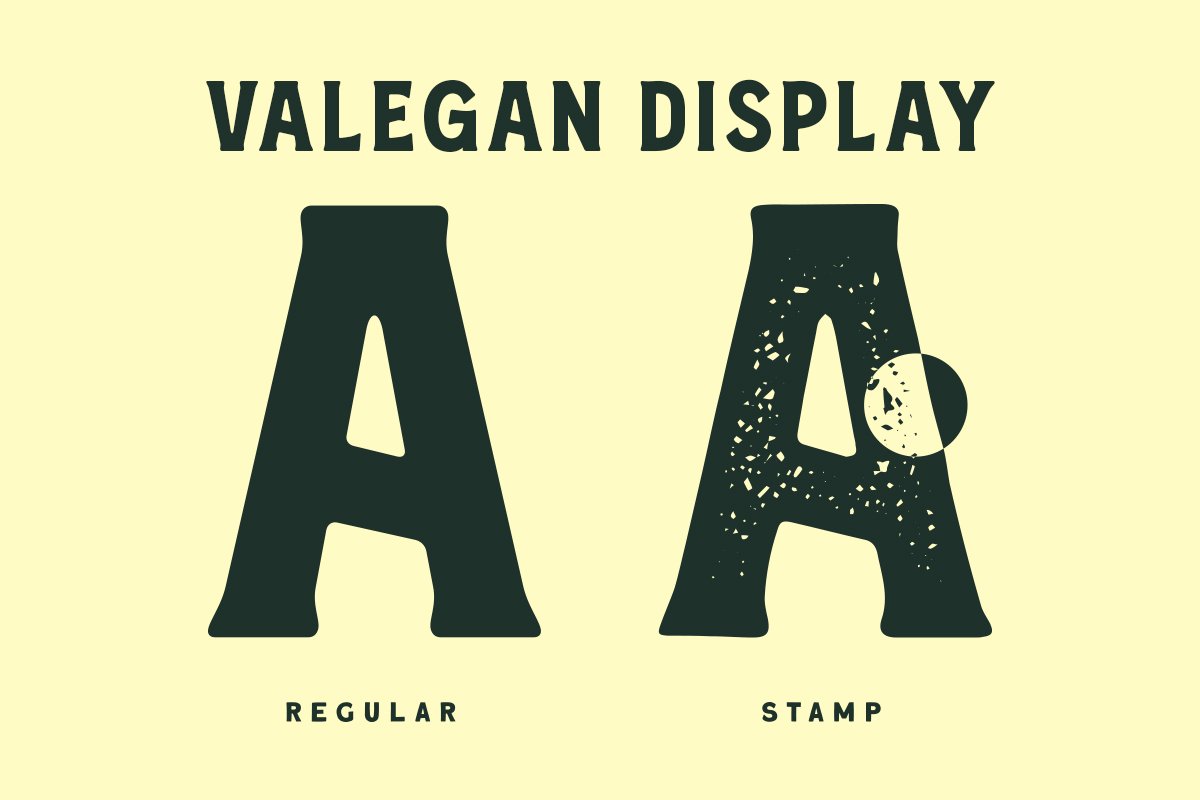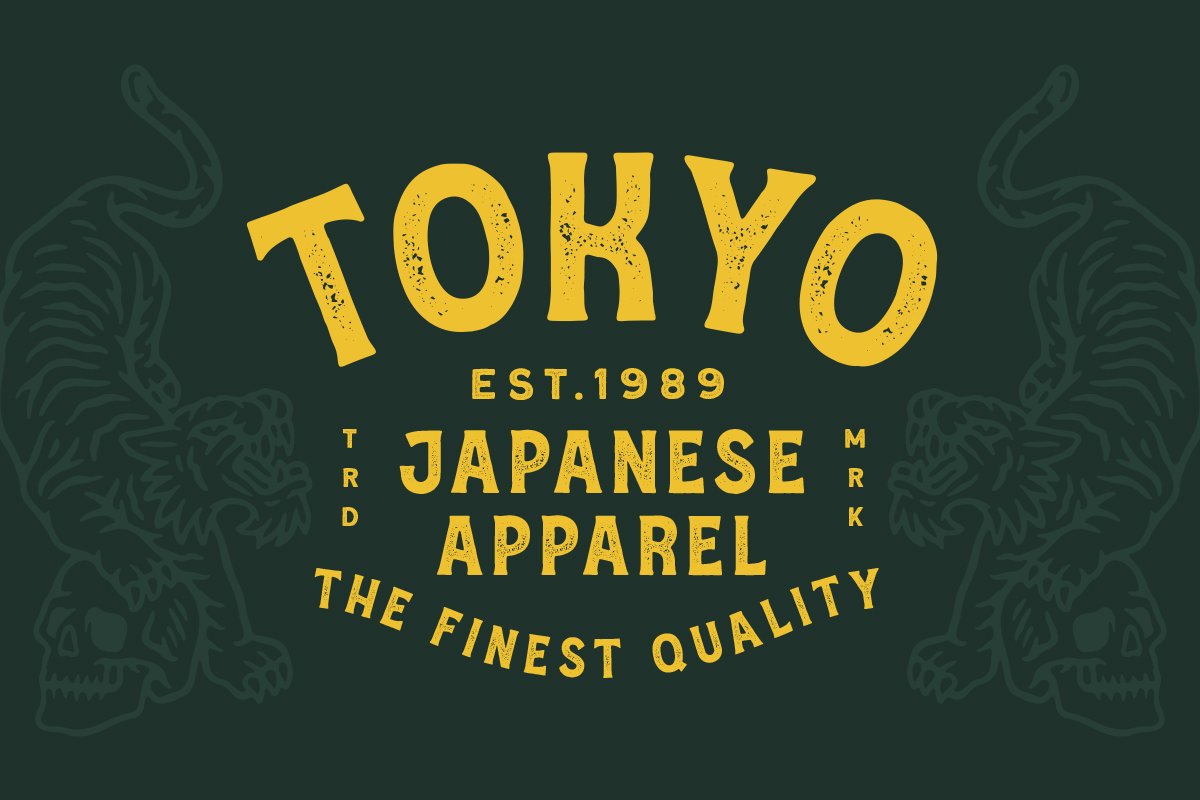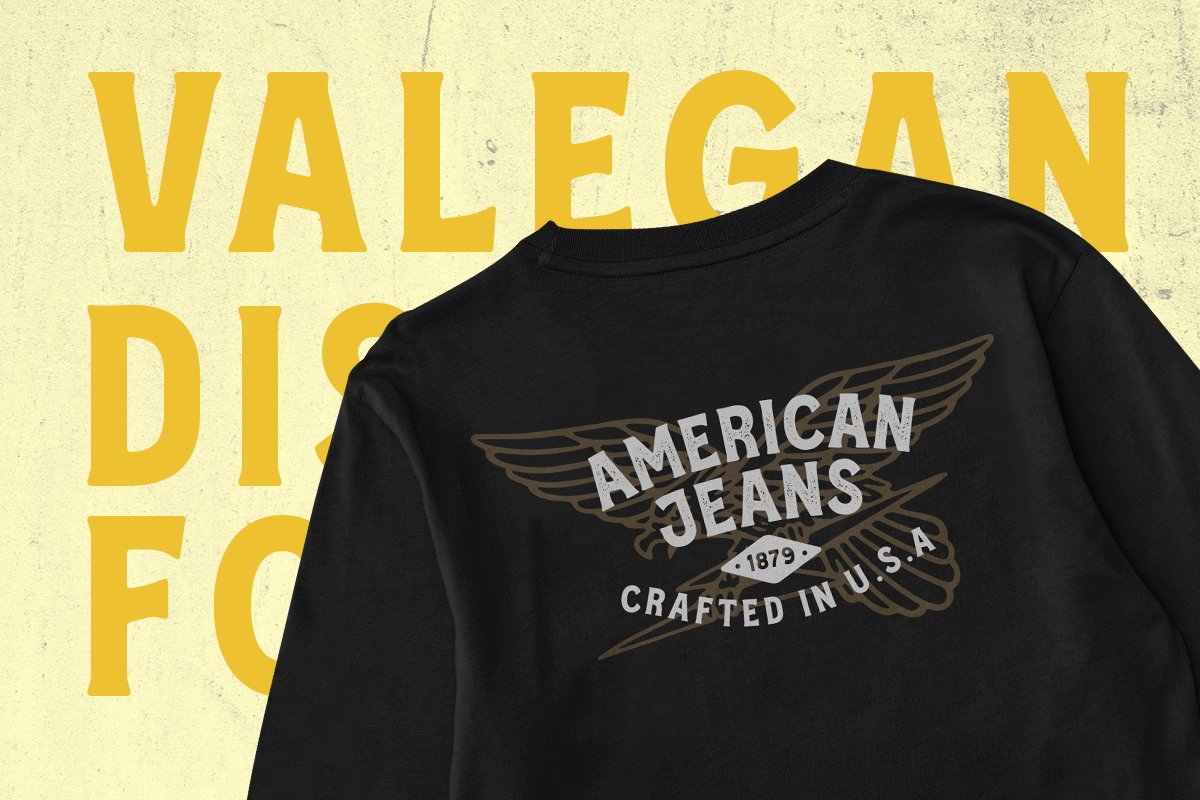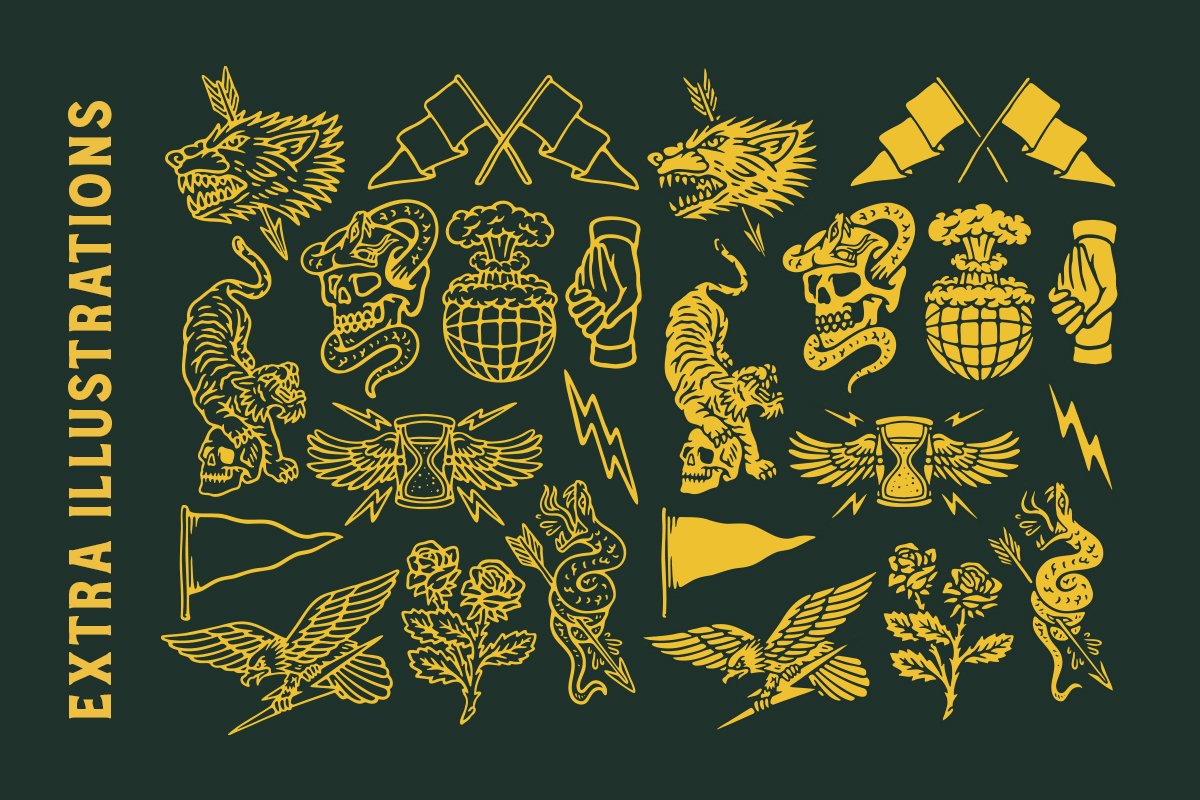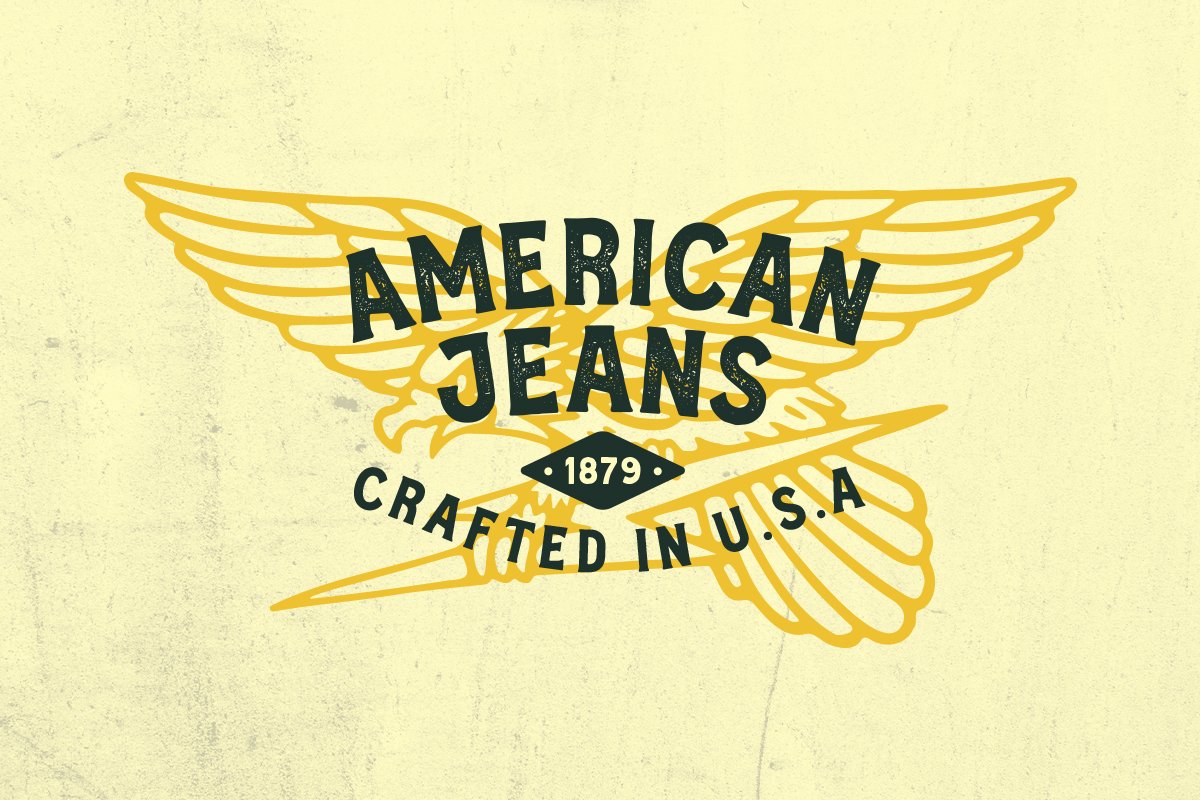
About the Valegan Bonus Illustration Font
Introducing, Valean Display Font, display font with a touch of vintage look and feel, You will also get hand drawn object as addition to your project, great to use as t-shirt illustration!This font duo is also perfectly made to be applied especially in logo, headline, signage and the other various formal forms such as invitations, labels, logos, magazines, books, greeting / wedding cards, packaging, fashion, make up, stationery, novels, labels or any type of advertising purpose
Features :Regular & Stamp Styleuppercase & lowercasenumbers and punctuationmultilingualalternates / swashes and ligaturesPUA encoded12 hand drawn IllustrationsWe highly recommend using a program that supports OpenType features and Glyphs panels like many of Adobe apps and Corel Draw, so you can see and access all Glyph variations